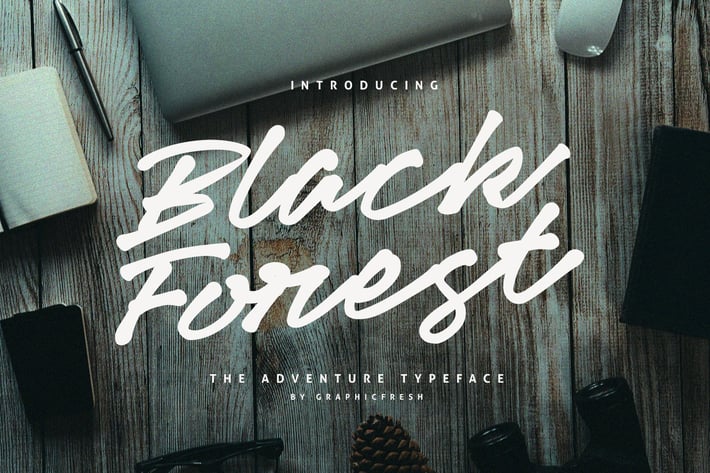
Black Forets Typeface Font
Black Forets Typeface Font. It comes with brush texture style which is perfect to make any design stand out! This font is perfect for branding, wedding invites, magazines, mugs, business cards, quotes, posters, and more.